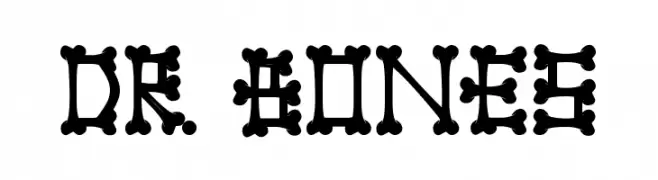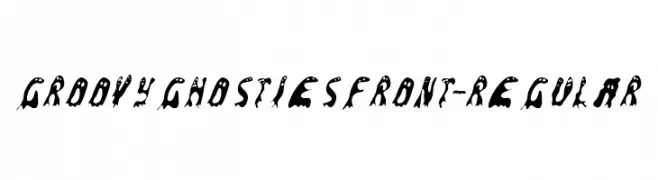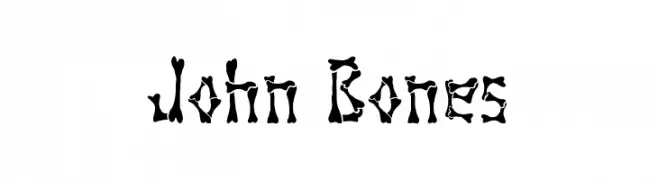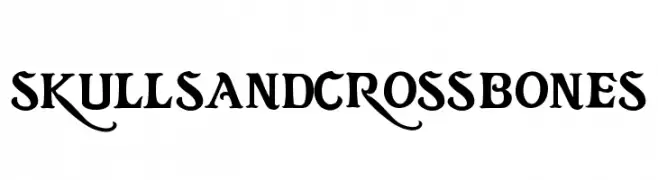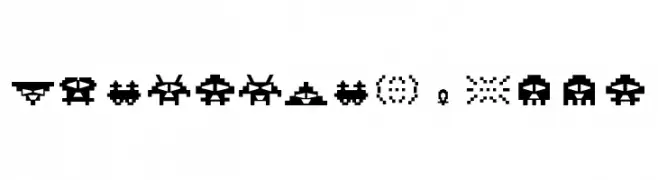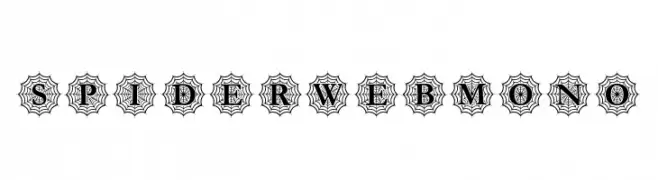
A decorative font with characters encased in spider web designs, ideal for themed projects.
A playful collection of hand-drawn, space-themed dingbats.
A sharp, thorny font perfect for horror and gothic themes.
A whimsical, ghost-themed decorative font with playful, animated characters.
A pixelated, arcade-inspired font with a retro space theme.
A bold, pirate-themed font with ornate flourishes and dramatic serifs.
A bold, playful font with nautical-themed cut-out details and rounded strokes.
A playful, bone-themed decorative font ideal for spooky designs.
A bone-themed decorative font perfect for spooky designs.
A blood-splattered, semi-italic font with a dramatic, horror-themed style.